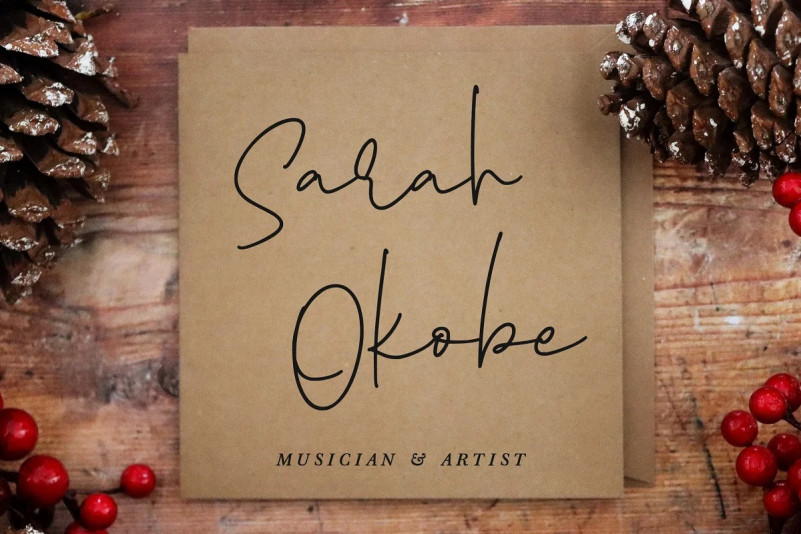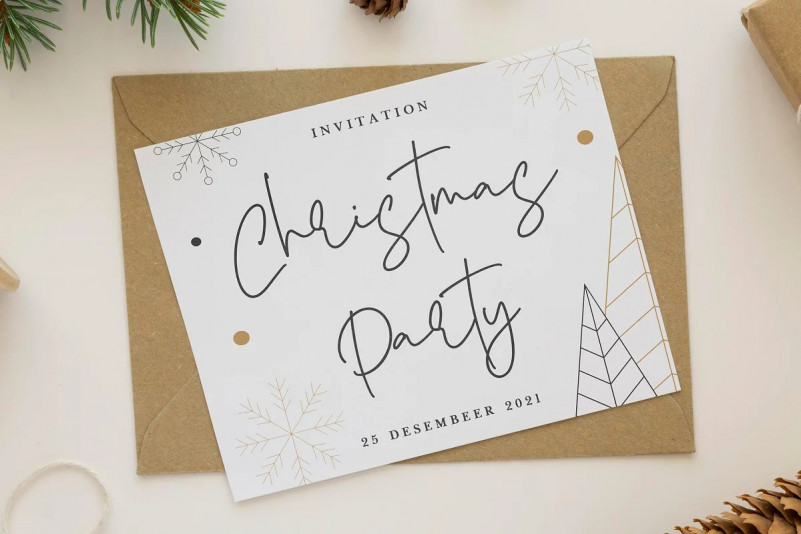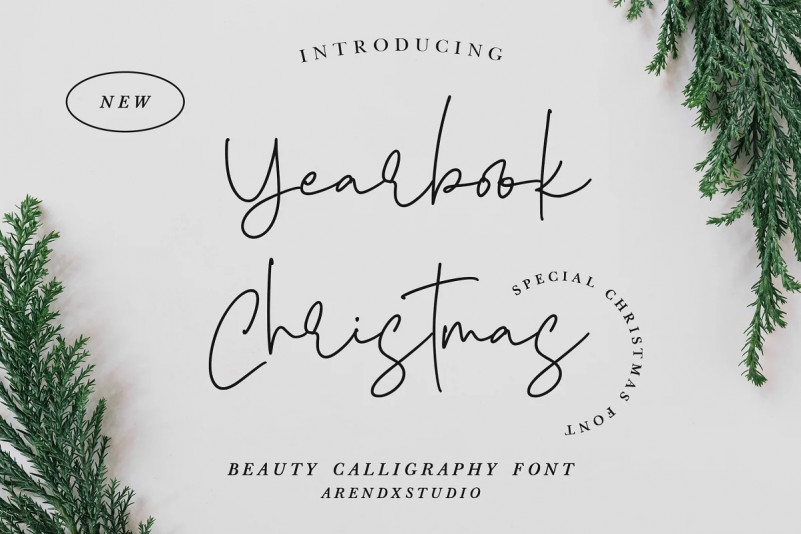
Yearbook Christmas Handwritten Font
Yearbook Christmas – Beauty Calligraphy Font is a font with distinctive handwritten characters perfect for branding projects, logos, wedding designs, media posts, advertisements, product packaging, product designs, labels, photography, watermarks, invitations, stationery, and any project who need handwritten dishes.